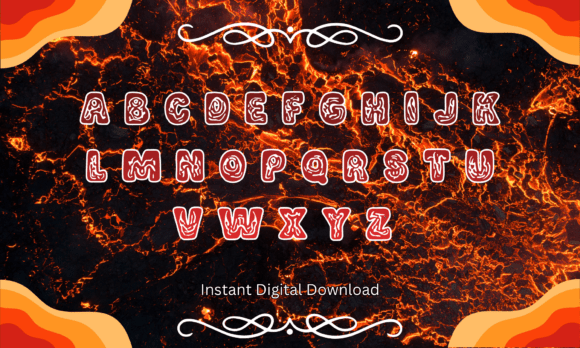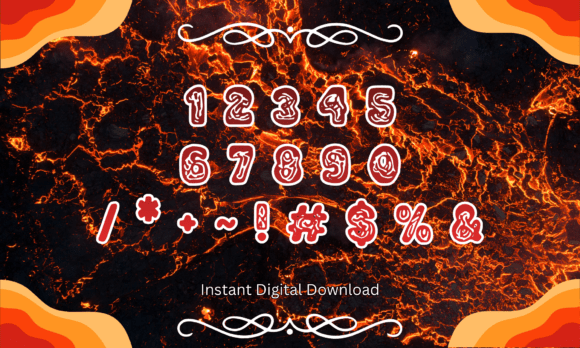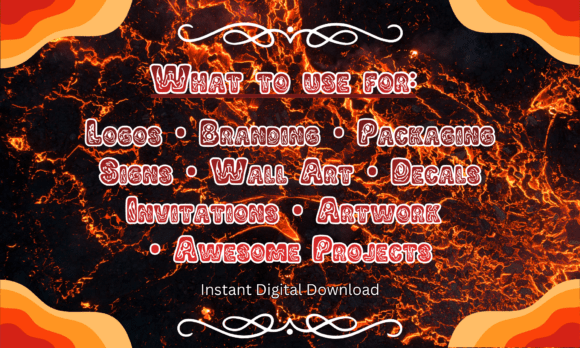
Introduction to Molten Lava Font
Have you ever found yourself staring at a blank design canvas, desperate for the perfect font to ignite your creative project? I know I have. And then, like a spark of inspiration, it hits you – the perfect font that elevates your design from meh to mesmerizing. For me, that font is the Molten Lava Font, a bold, molten-inspired display font that’s packed with fiery energy and magma-like detailing.
As a designer, you’re always on the lookout for unique design resources that can give your projects a competitive edge. And let’s face it, the Molten Lava Font is a game-changer. Its high-quality design and transparent background make it perfect for logos, merchandise, posters, stream graphics, and more. With its blazing volcanic vibes and flowing lava textures, this font is sure to add a touch of explosive energy to any creative project.
- Unique, hand-crafted design featuring a molten lava effect, perfect for adding a dynamic touch to any design project.
Honest Review: Molten Lava Font
I recently stumbled upon the Molten Lava Font, a free download that caught my attention. As a designer, I’m always on the lookout for high-quality design resources to elevate my creative projects. In this review, I’ll share my thoughts on what works well and what might be improved.
- ✨ Unique Design: The Molten Lava Font has a distinctive, fiery aesthetic that’s sure to add a touch of drama to any design project.
- ✨ High-Quality Vectors: The font is available in high-resolution vector format, making it perfect for printing and digital use.
- ✨ Transparent Background: The font’s transparent background allows for seamless integration with other design elements.
- ⚠️ Limited Character Set: The Molten Lava Font appears to have a limited character set, which may be a drawback for designers who require a more comprehensive font library.
- ⚠️ Not Ideal for Body Text: Due to its bold, eye-catching design, the Molten Lava Font may not be suitable for large blocks of body text.
Overall, I think the Molten Lava Font is a great addition to any designer’s toolkit. While it may have some limitations, its unique design and high-quality vectors make it a valuable resource for creative projects. If you’re looking for a bold, attention-grabbing font, the Molten Lava Font is definitely worth checking out.
The Molten Lava Font is a unique design resource ideal for creative projects requiring a high-quality, bold, and eye-catching typography. This font is available for free download and features a transparent background, making it easily editable and versatile.
The Molten Lava Font is ideal for use in creative projects such as posters, flyers, brochures, and social media graphics. It’s also perfect for use in presentations, documents, and websites requiring a bold and eye-catching typography.